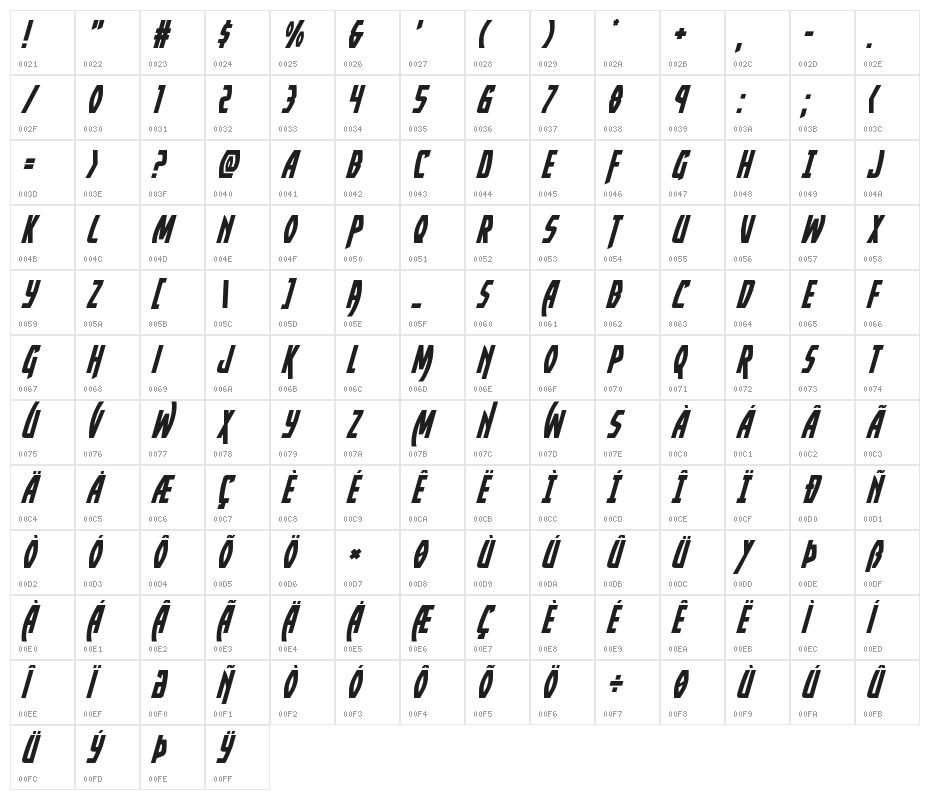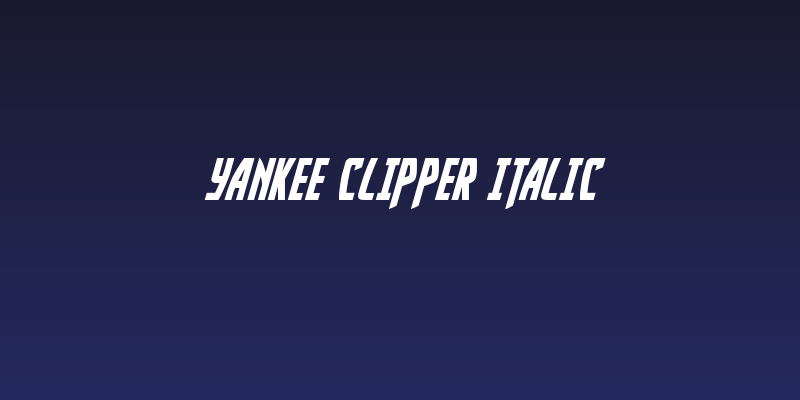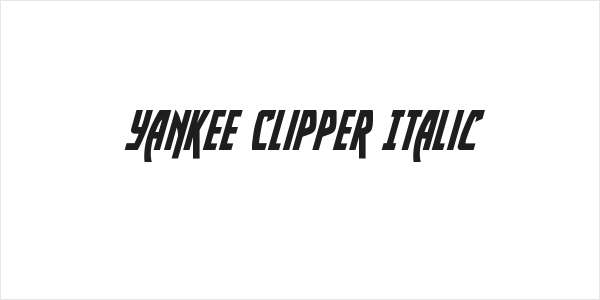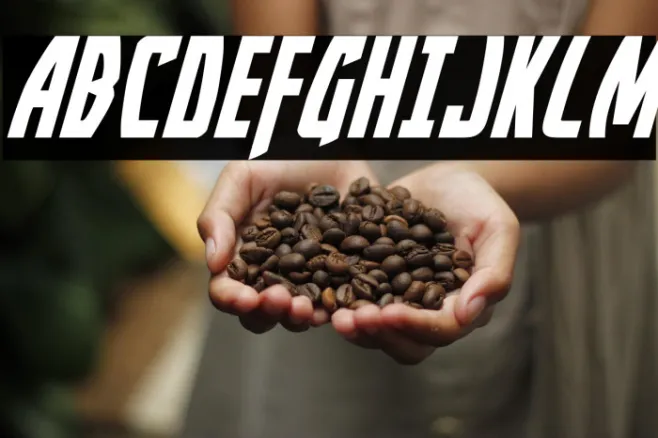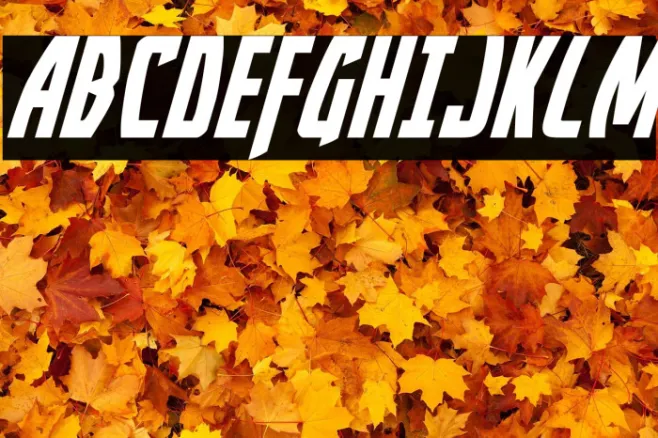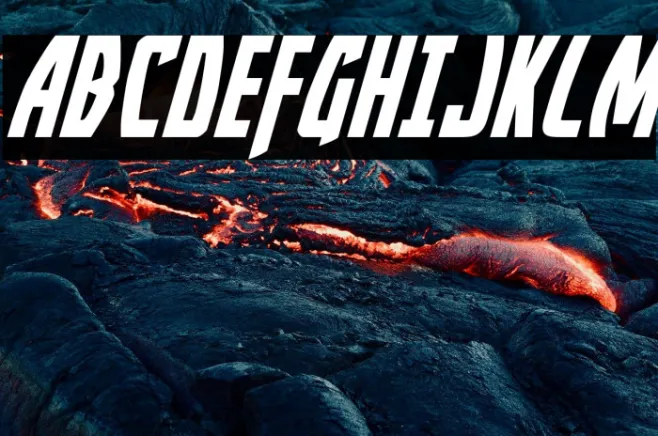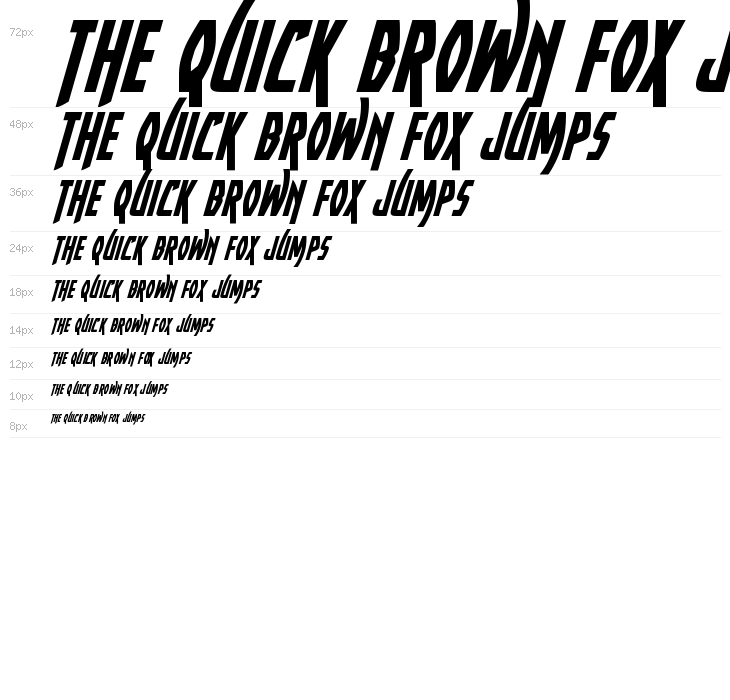
Yankee Clipper Italic Font
Yankee Clipper Italic Description
This font features a bold, italicized style with a strong, dynamic presence. The characters are sharply angled, giving a sense of movement and speed. The uppercase and lowercase letters maintain a consistent slant, enhancing the italic effect. The numbers and special characters follow the same design principles, ensuring uniformity across all glyphs. The strokes are thick and consistent, contributing to a high contrast appearance. This font's unique style makes it stand out, perfect for projects that require a bold statement.